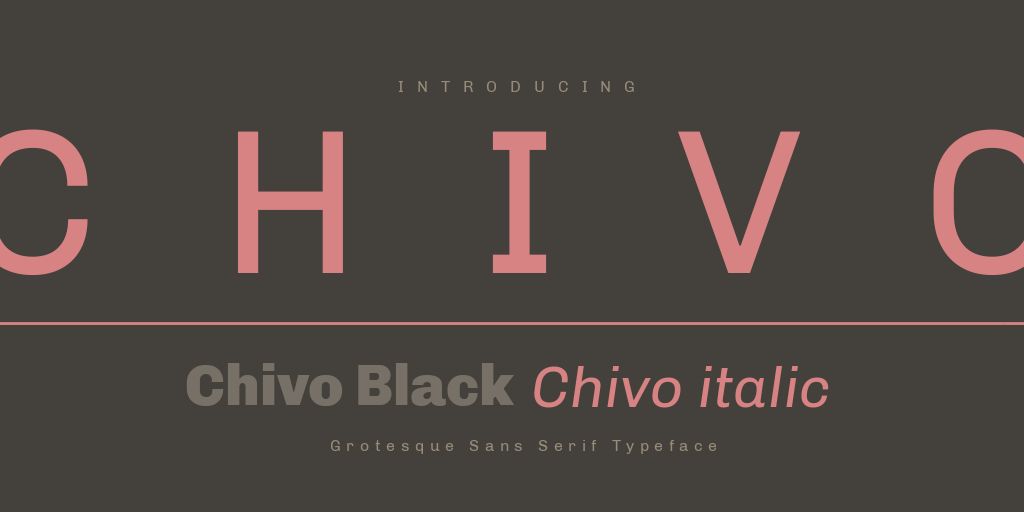
Chivo Font Pairing
The family is available in four weights with matching italics. The technical and aesthetic characteristics of the font are both crafted for high performance typography. I hope you find this to be a powerful resource that helps fuel your personal and client design projects for a long time to come.
Chivo regular's elegance makes it ideal for combining with the strength of chivo black for continuous reading. See the real world font pairing example of alfa slab one & chivo. Download cutive mono zip →
This Industrial Font Pairing Is Perfect For Those Who Want To Evoke A Stoic And Authoritative Brand Presence.